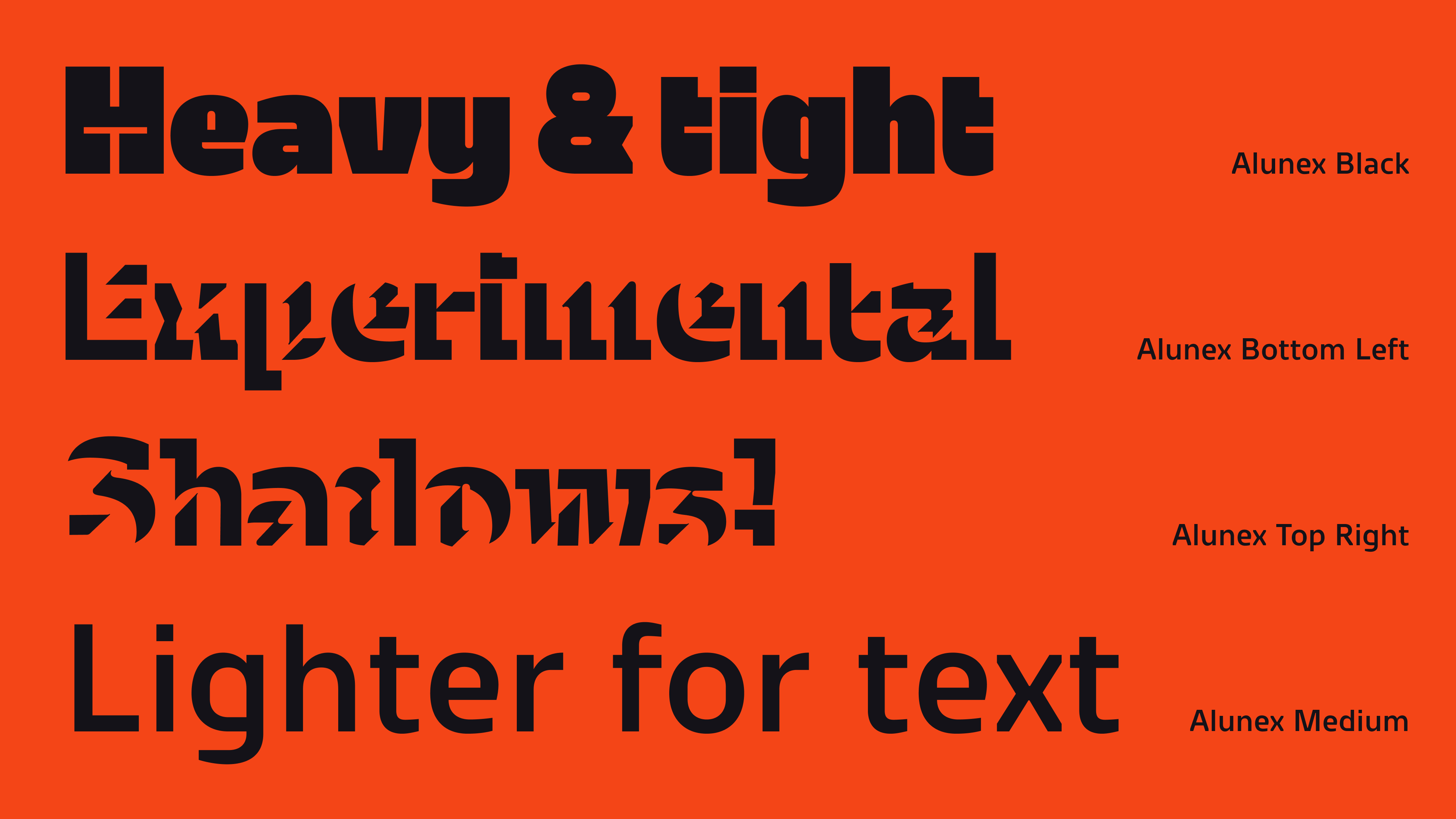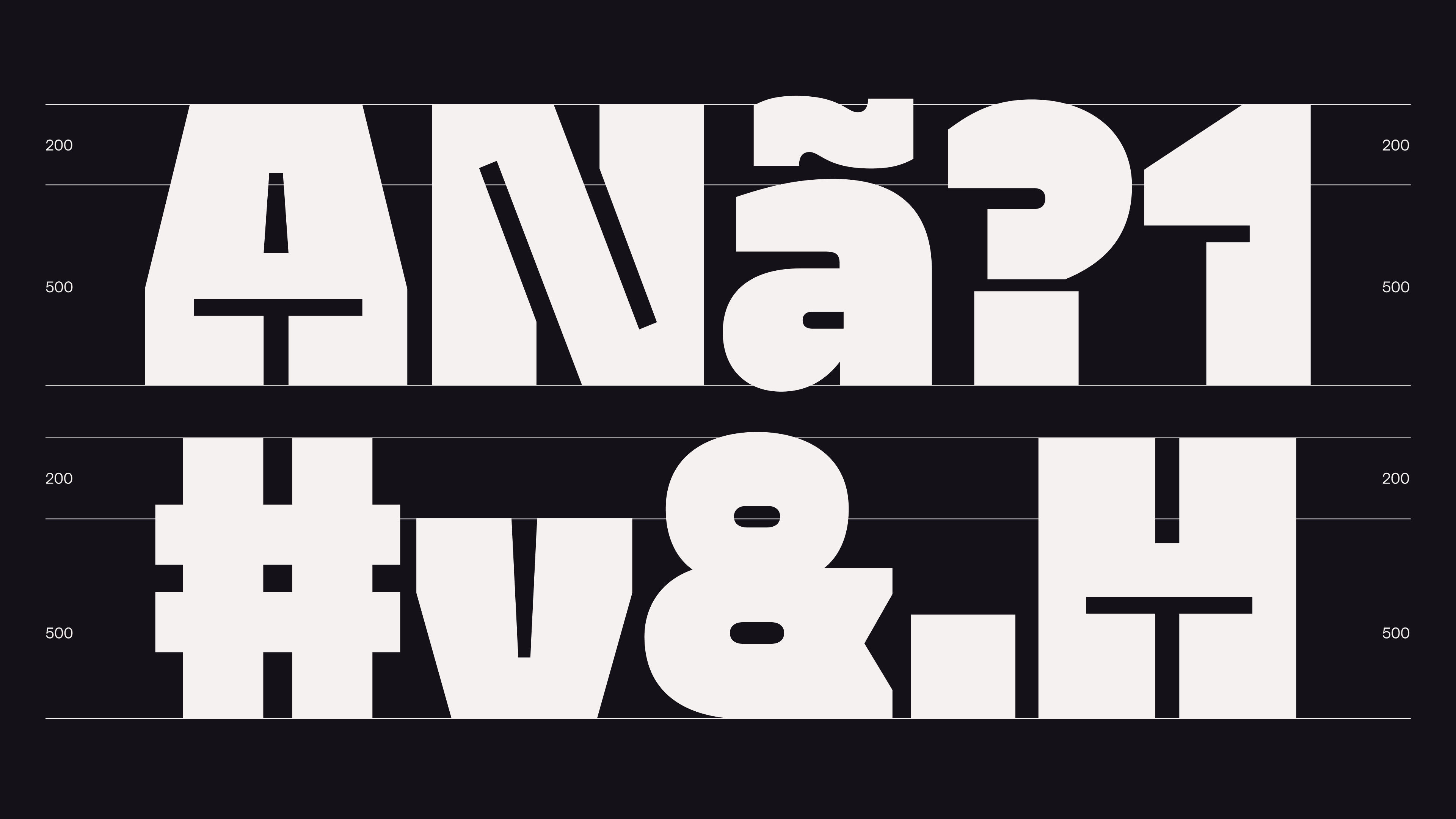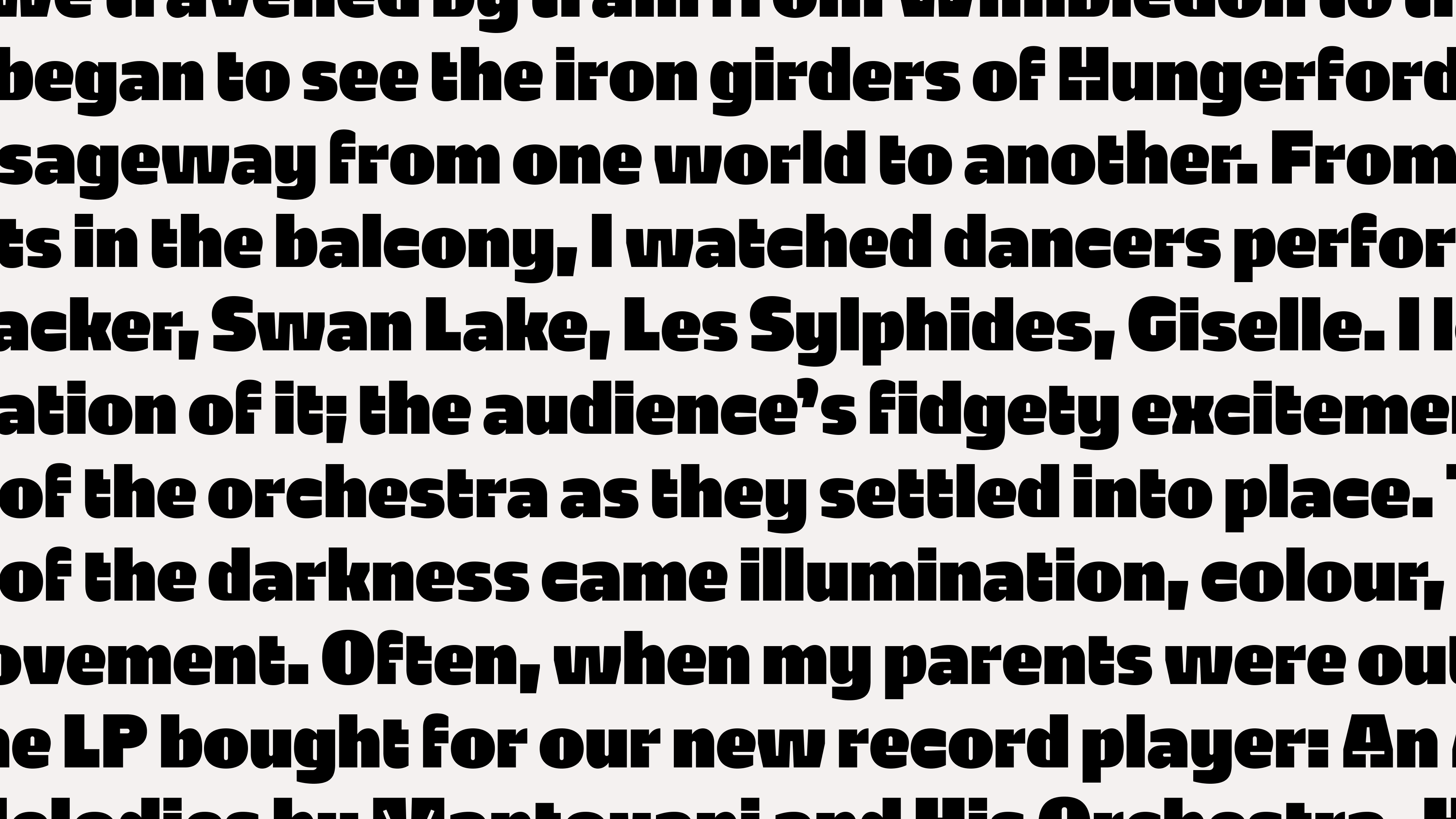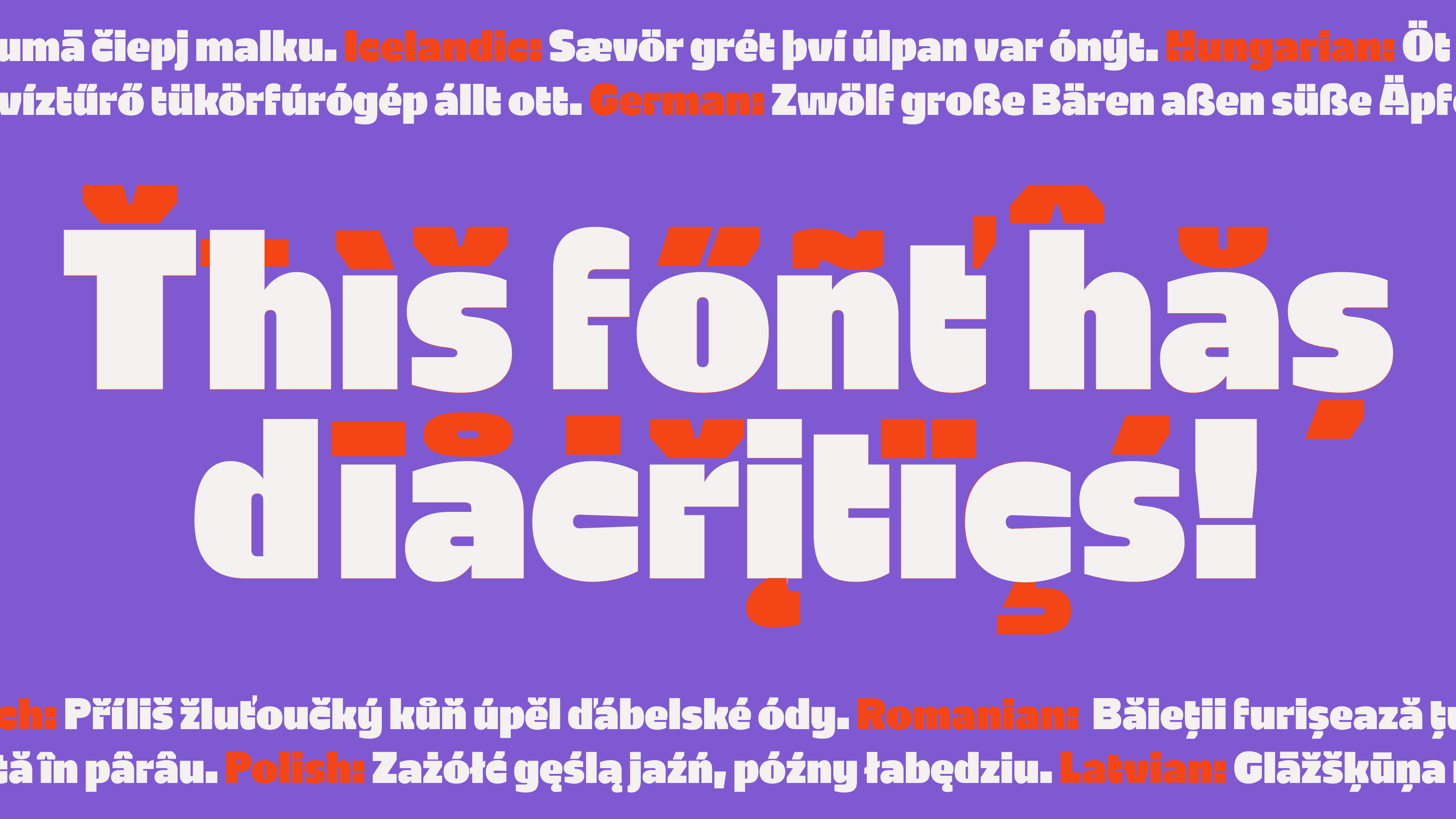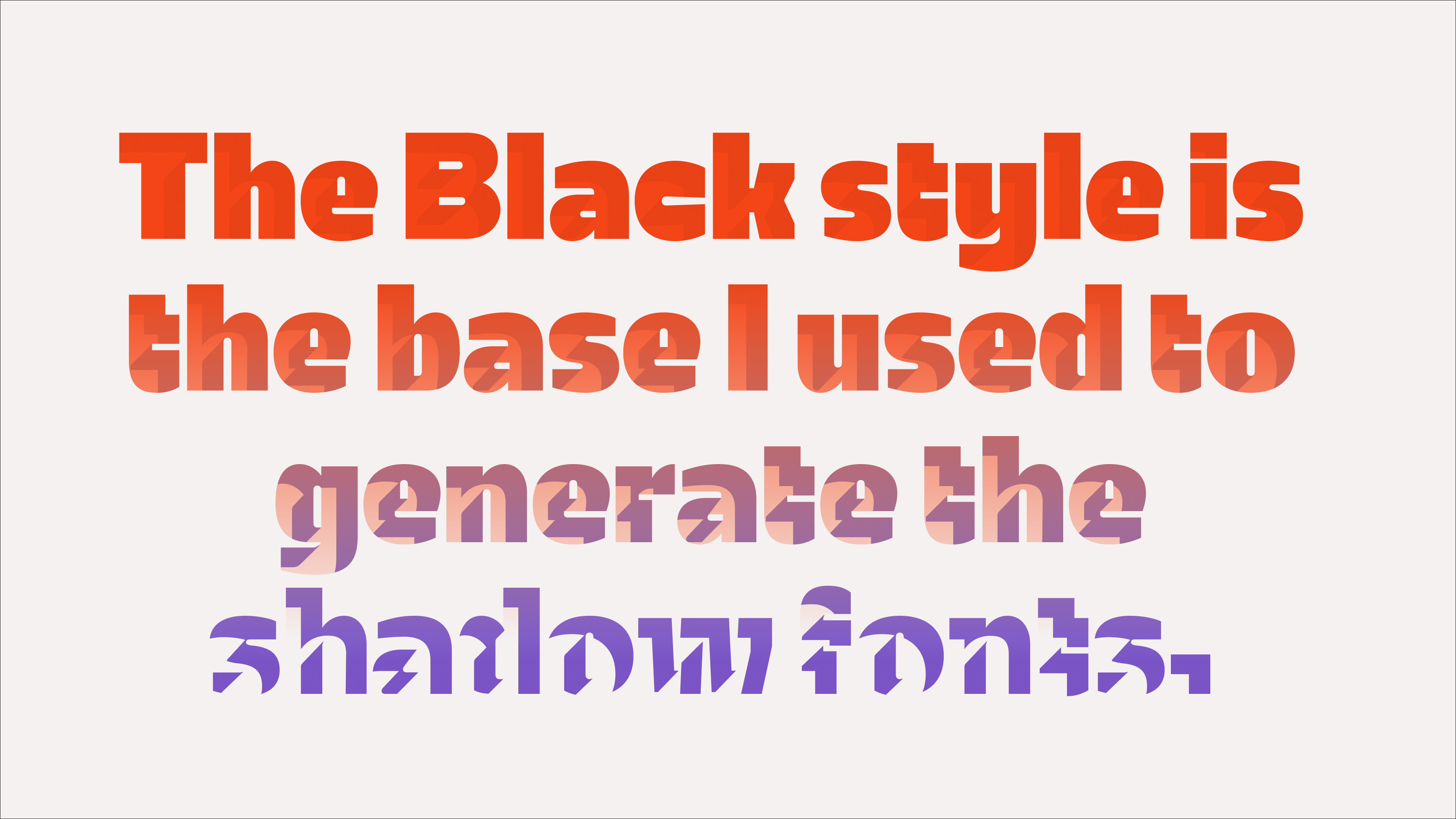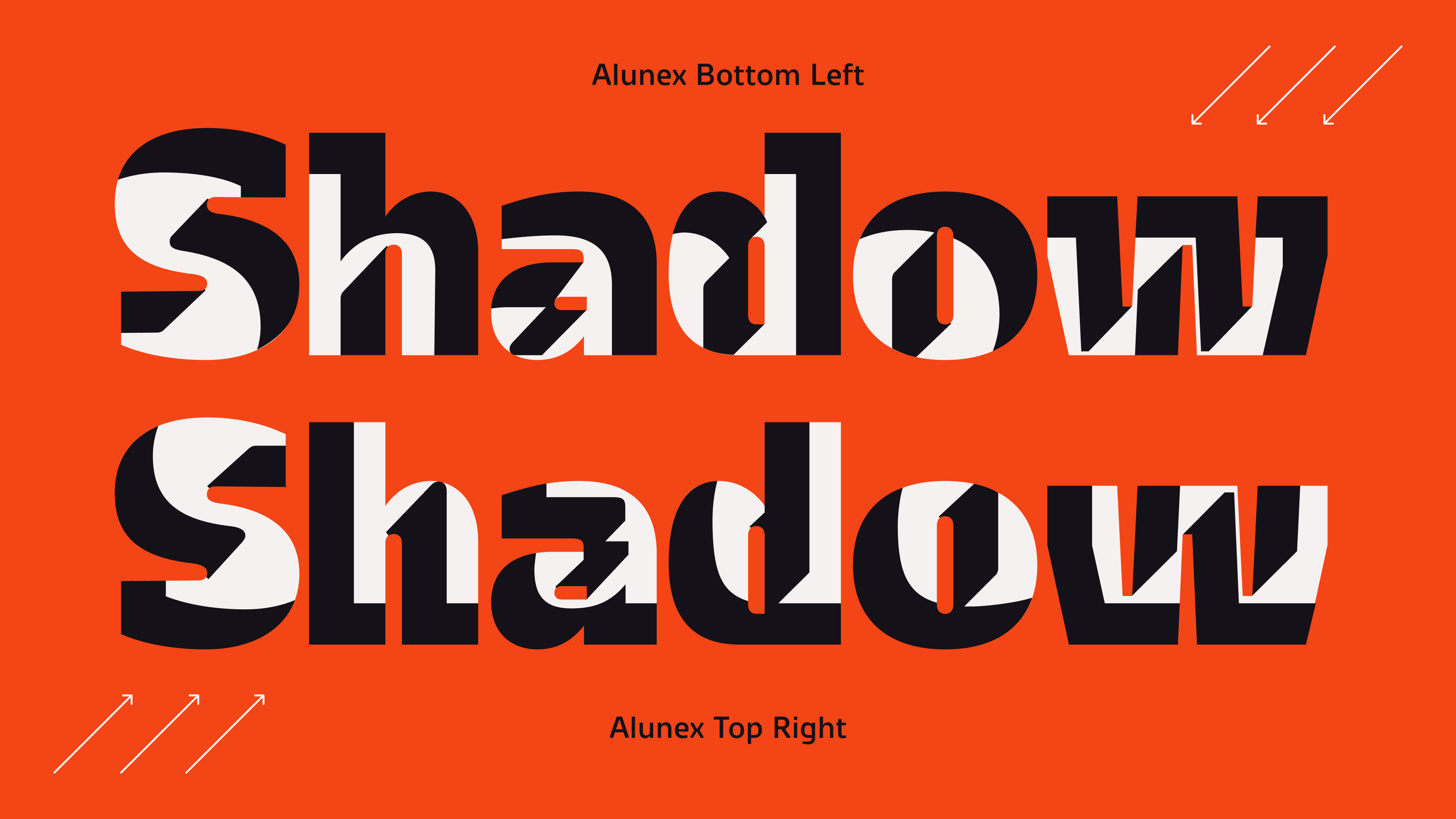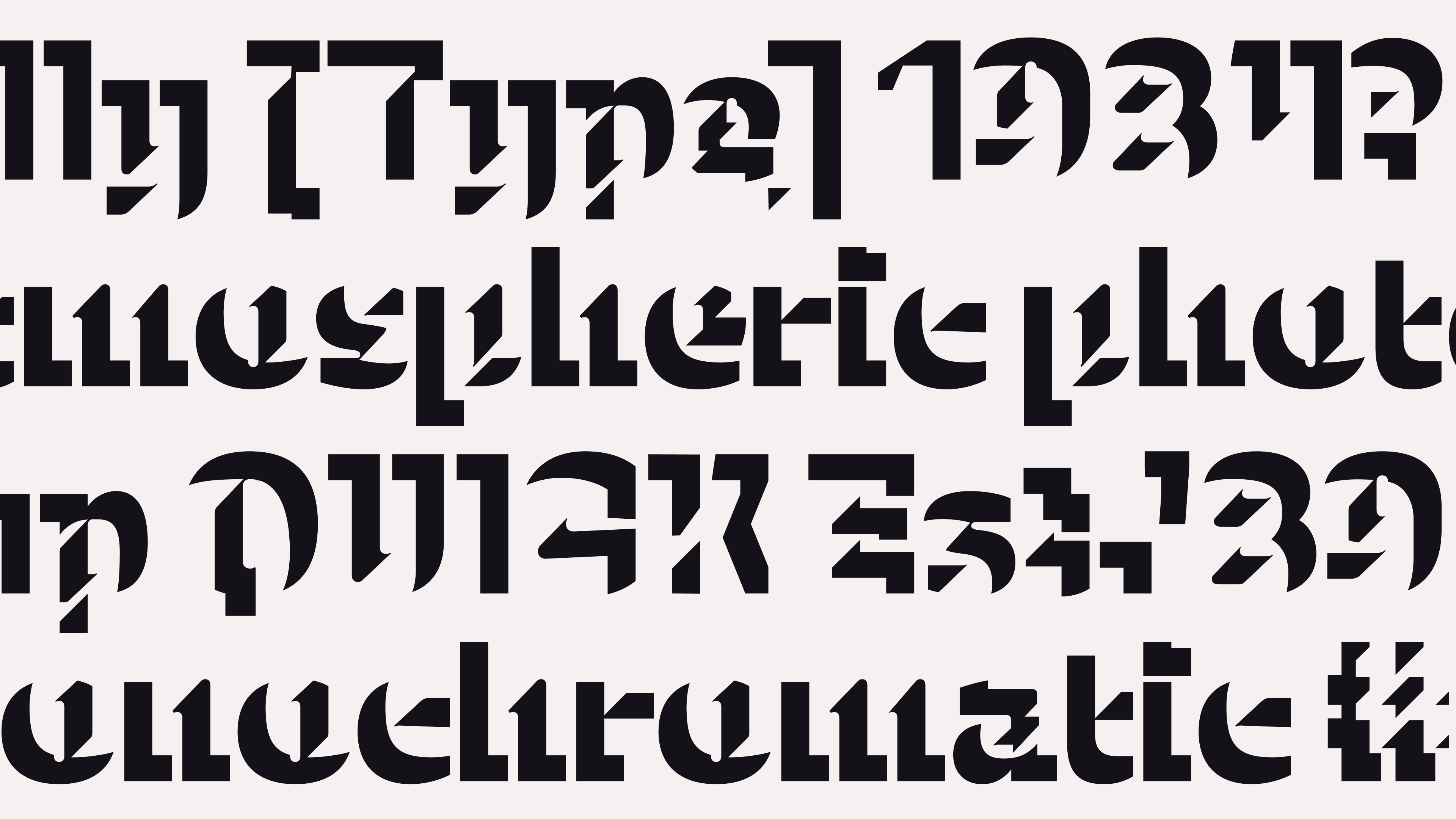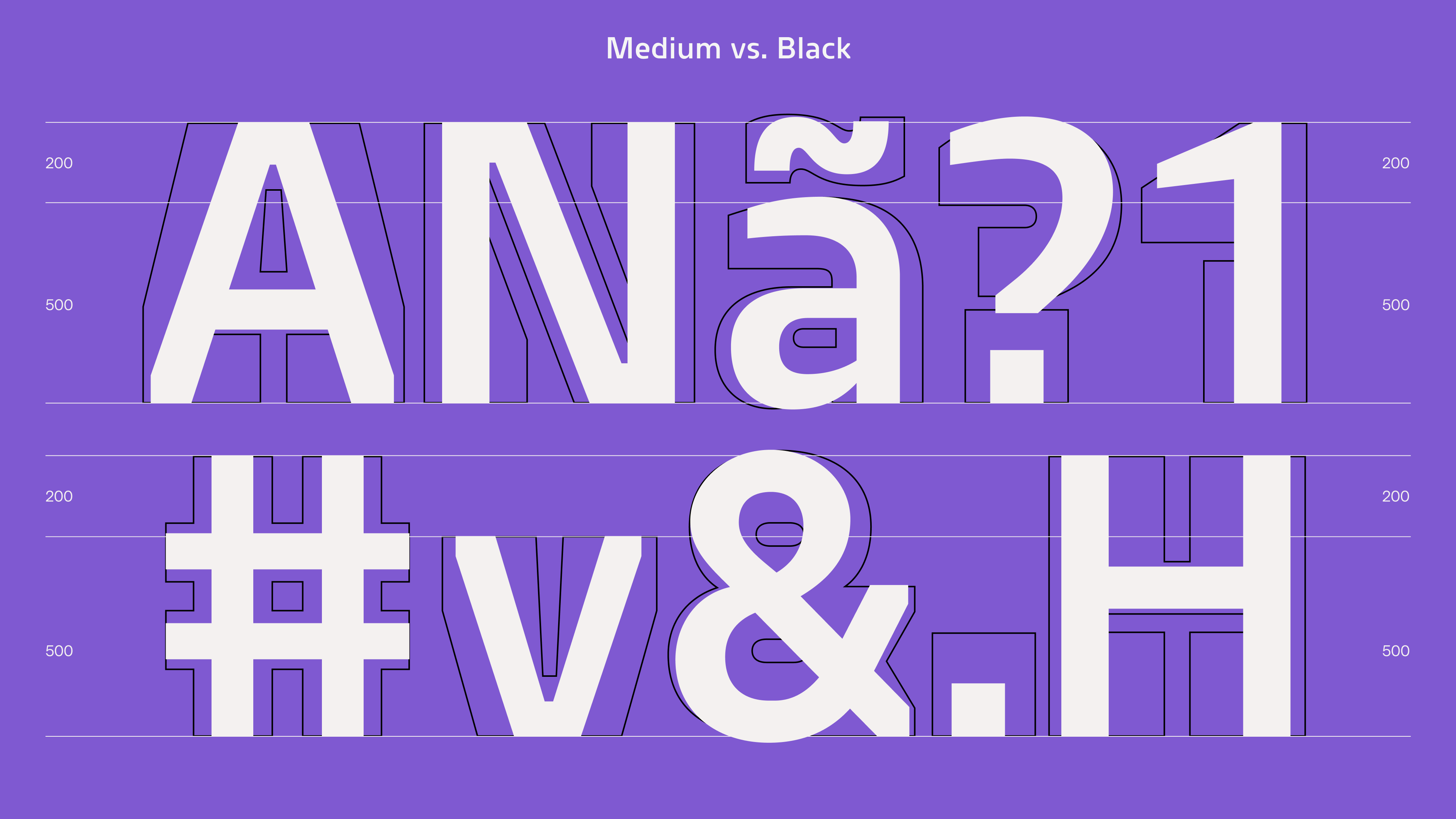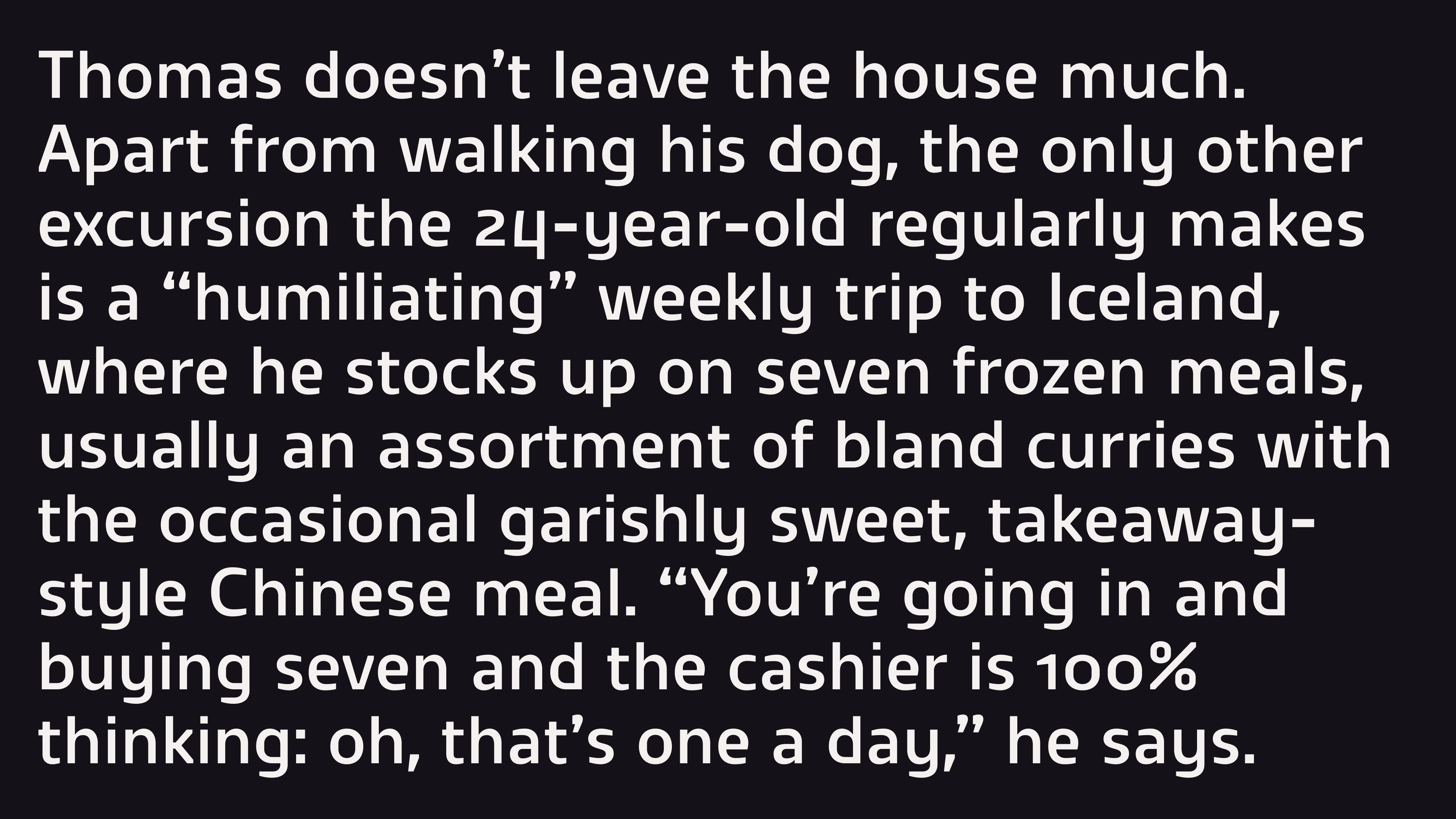
The Alunex font family explores materials and letterforms. I started creating 3D letters with various materials, translating them back to a 2D environment using inner shadows. I ended up with four digital fonts: Black, Medium, and two experimental shadow styles. I generated these from the Black style using a custom RoboFont script. To achieve interesting yet recognizable shadow letters, the Black style features small horizontal and vertical counters and deep cuts (A, H, N, M).
Tereza Umlaufová is a type and graphic designer from Prague, Czechia. She holds Bachelor’s and Master’s degrees in Visual Communication from the Academy of Fine Arts and Design in Bratislava, Slovakia. Her joy for type comes from exploring and experimenting with unusual letterforms, questioning legibility, and challenging current font technologies.